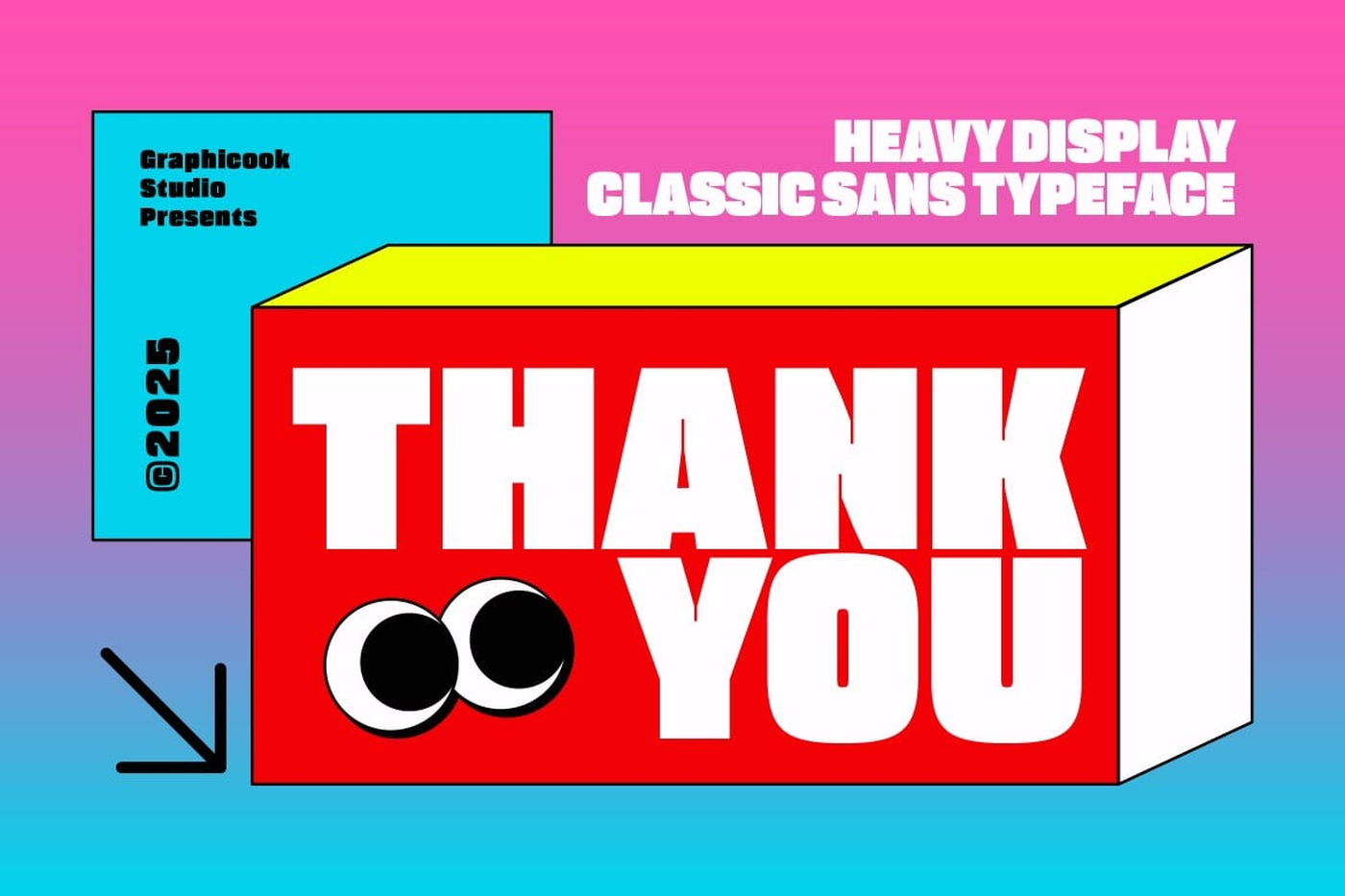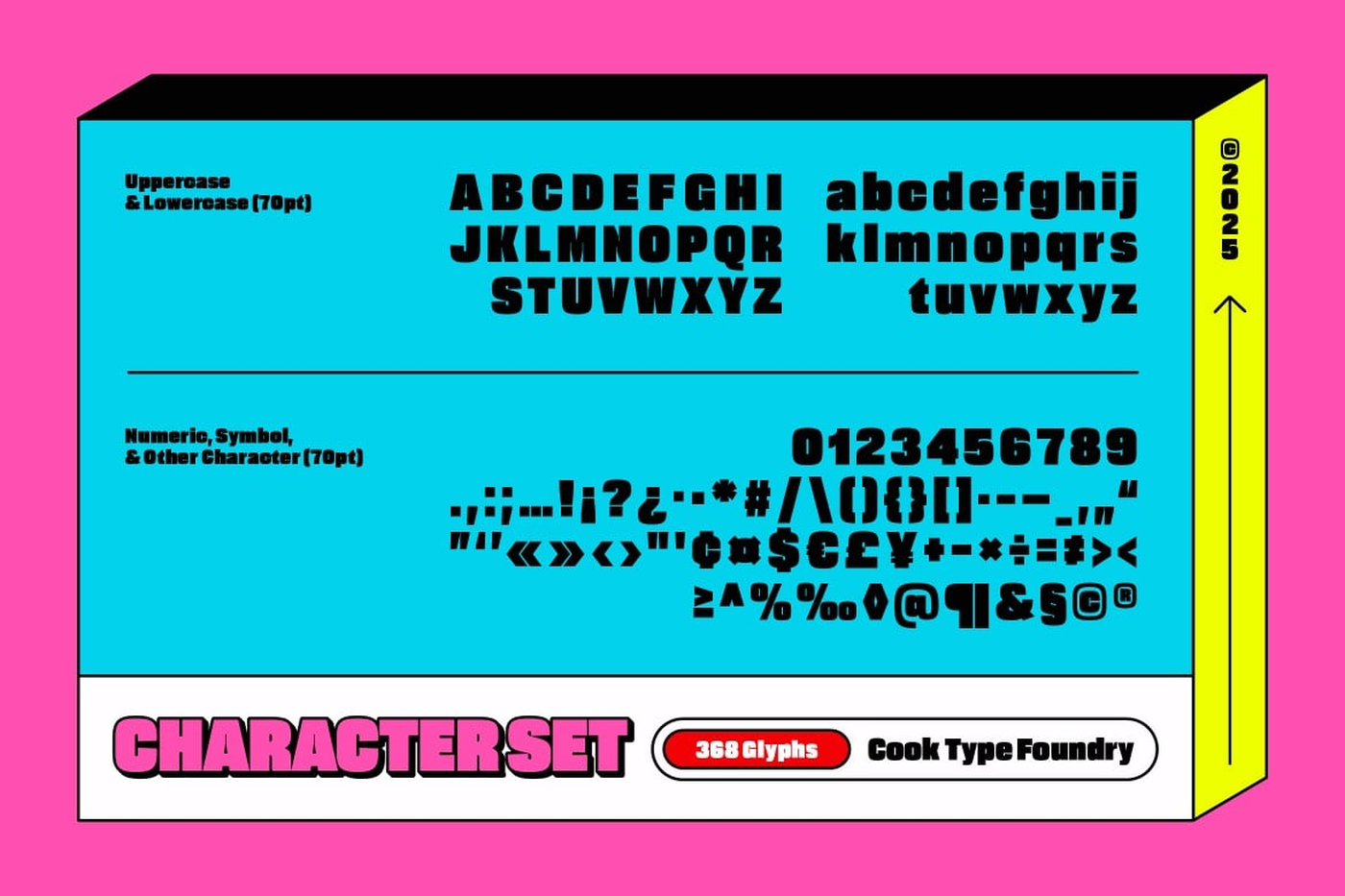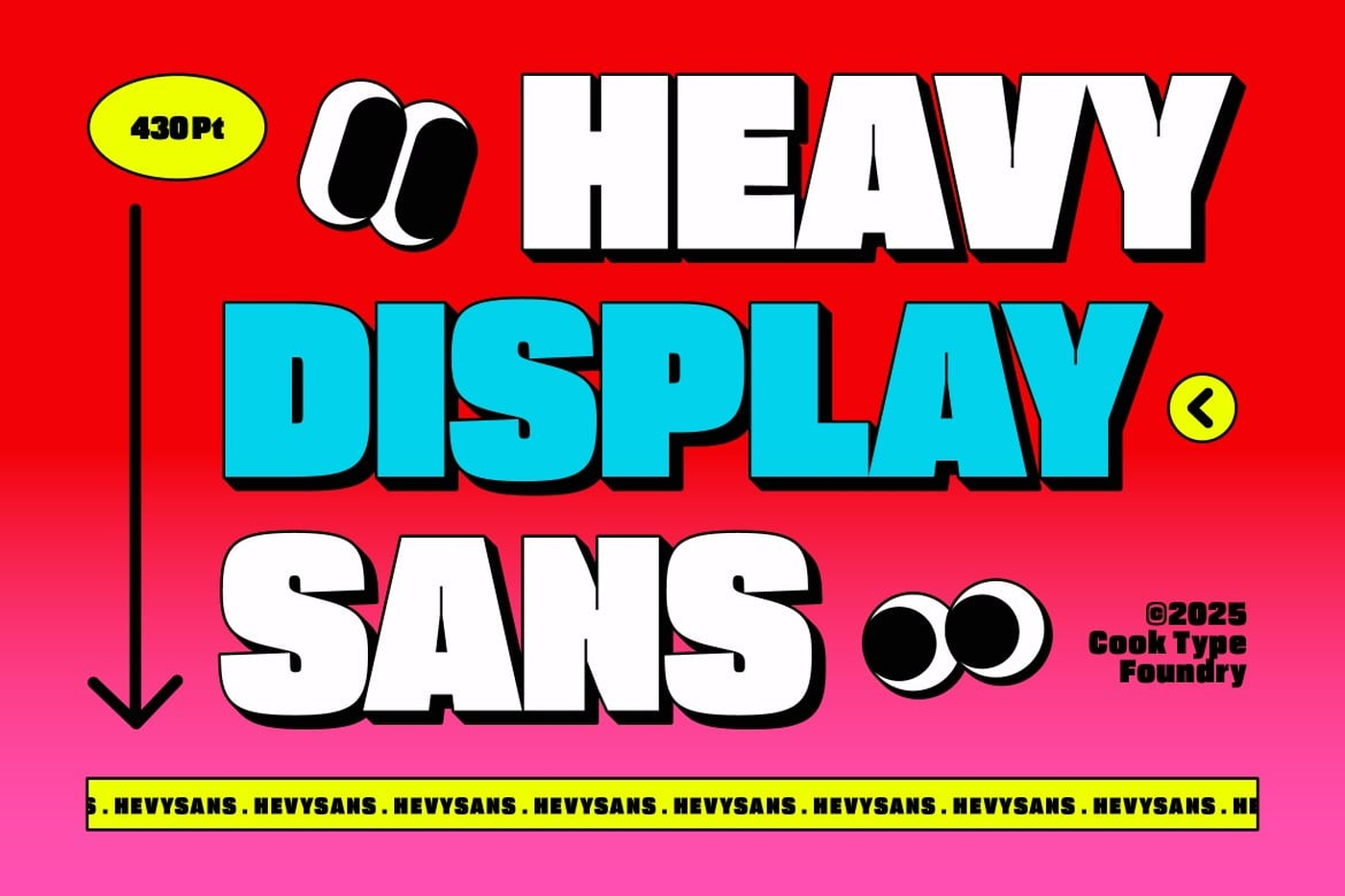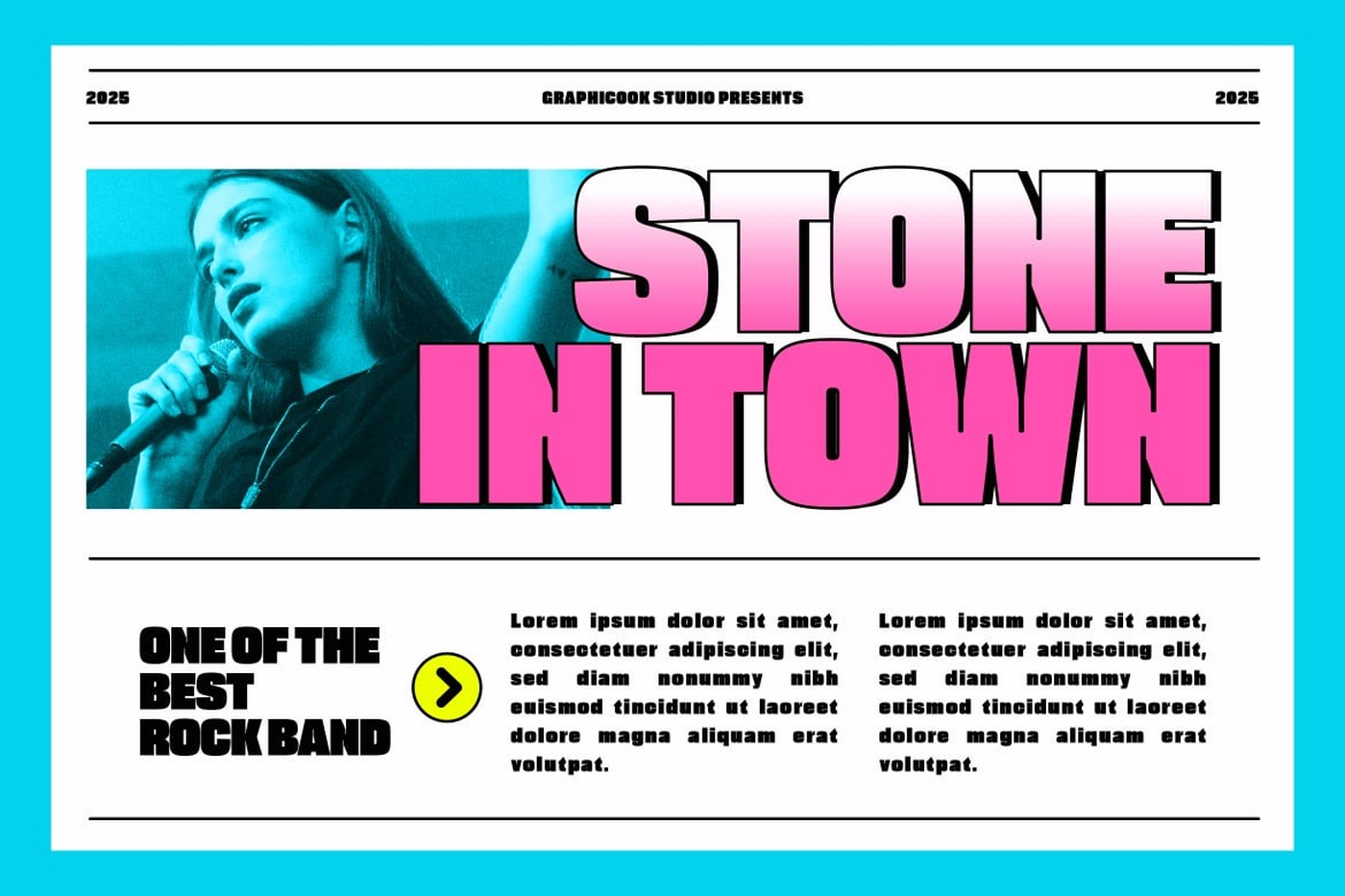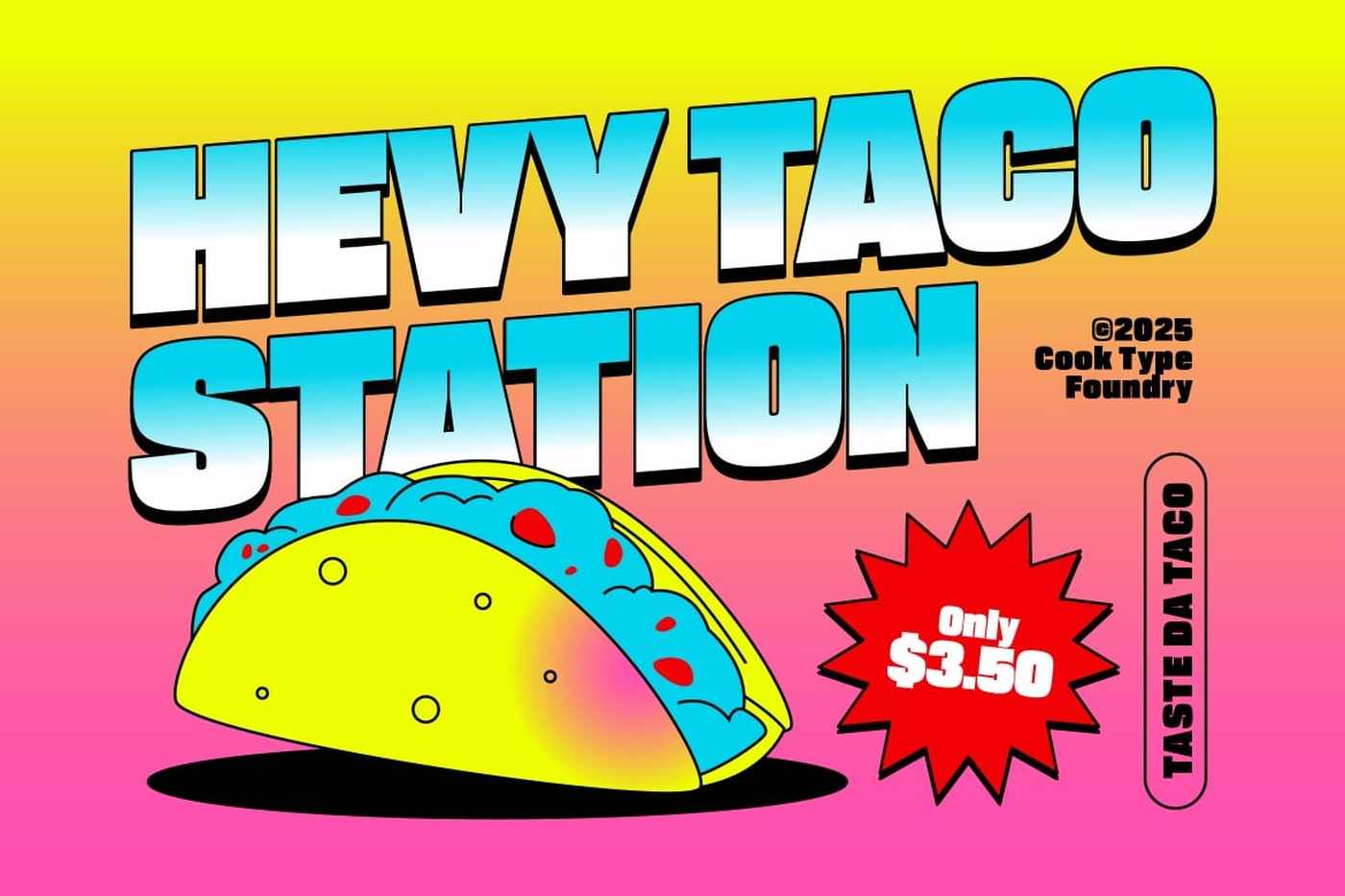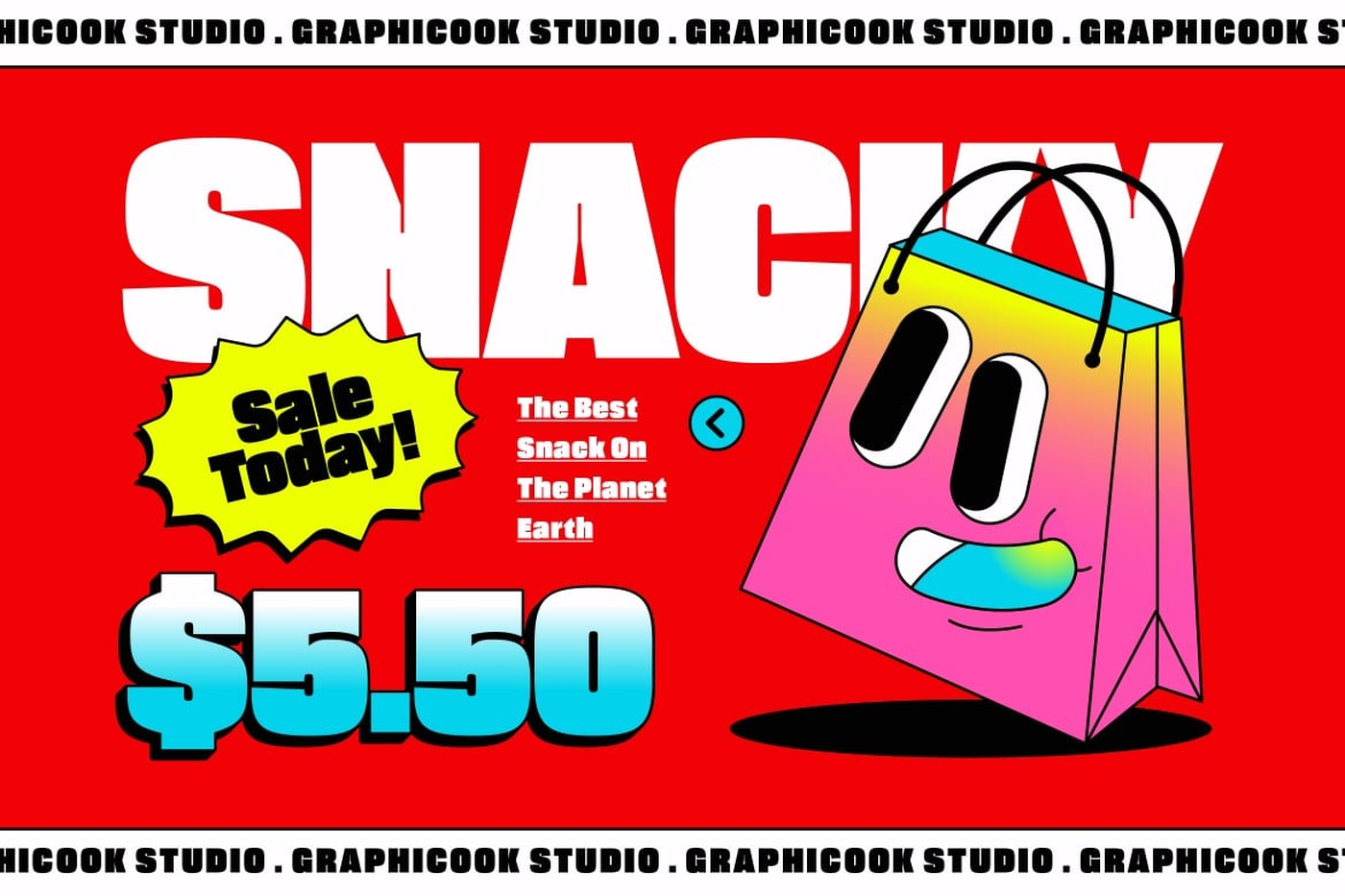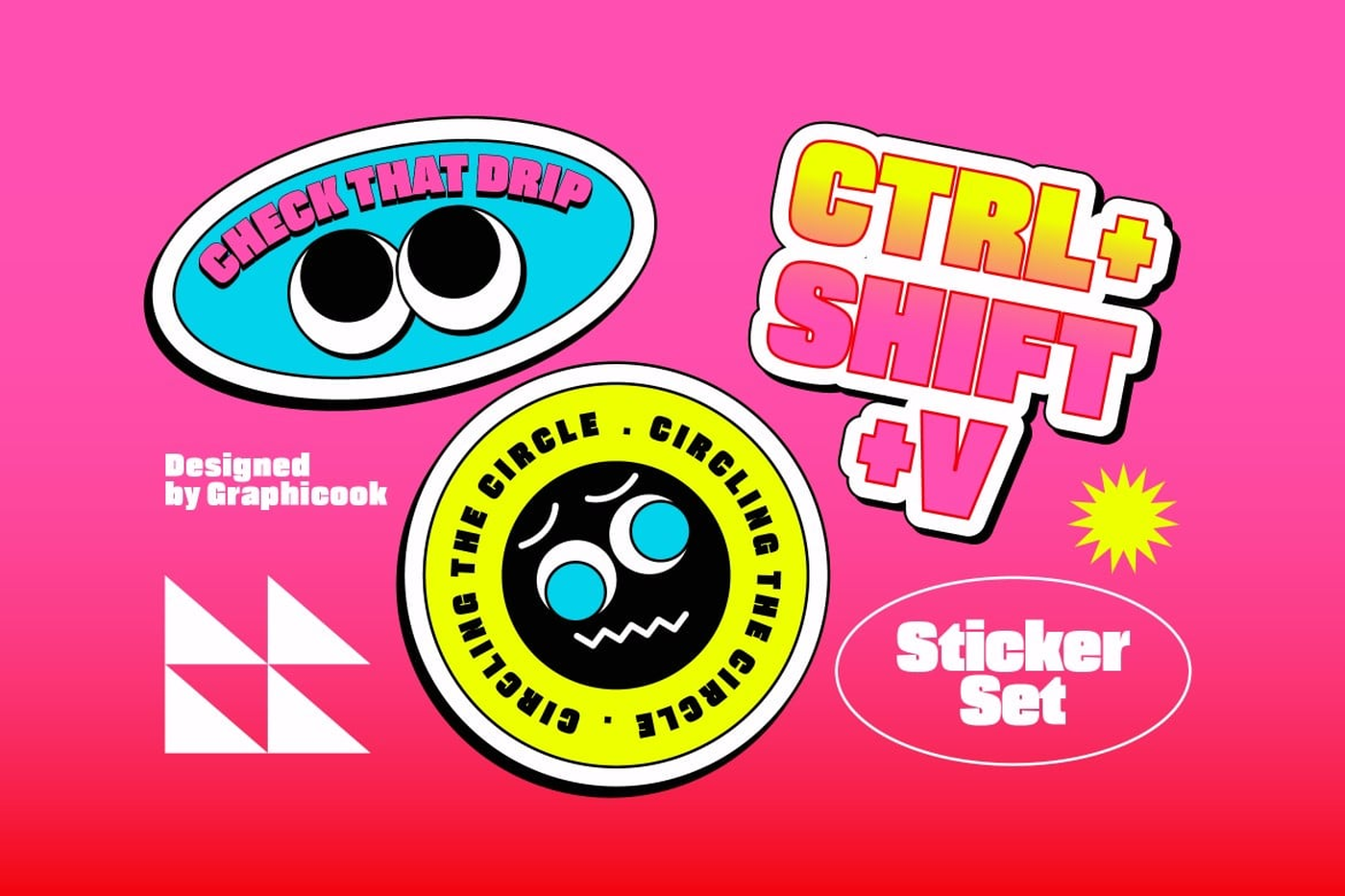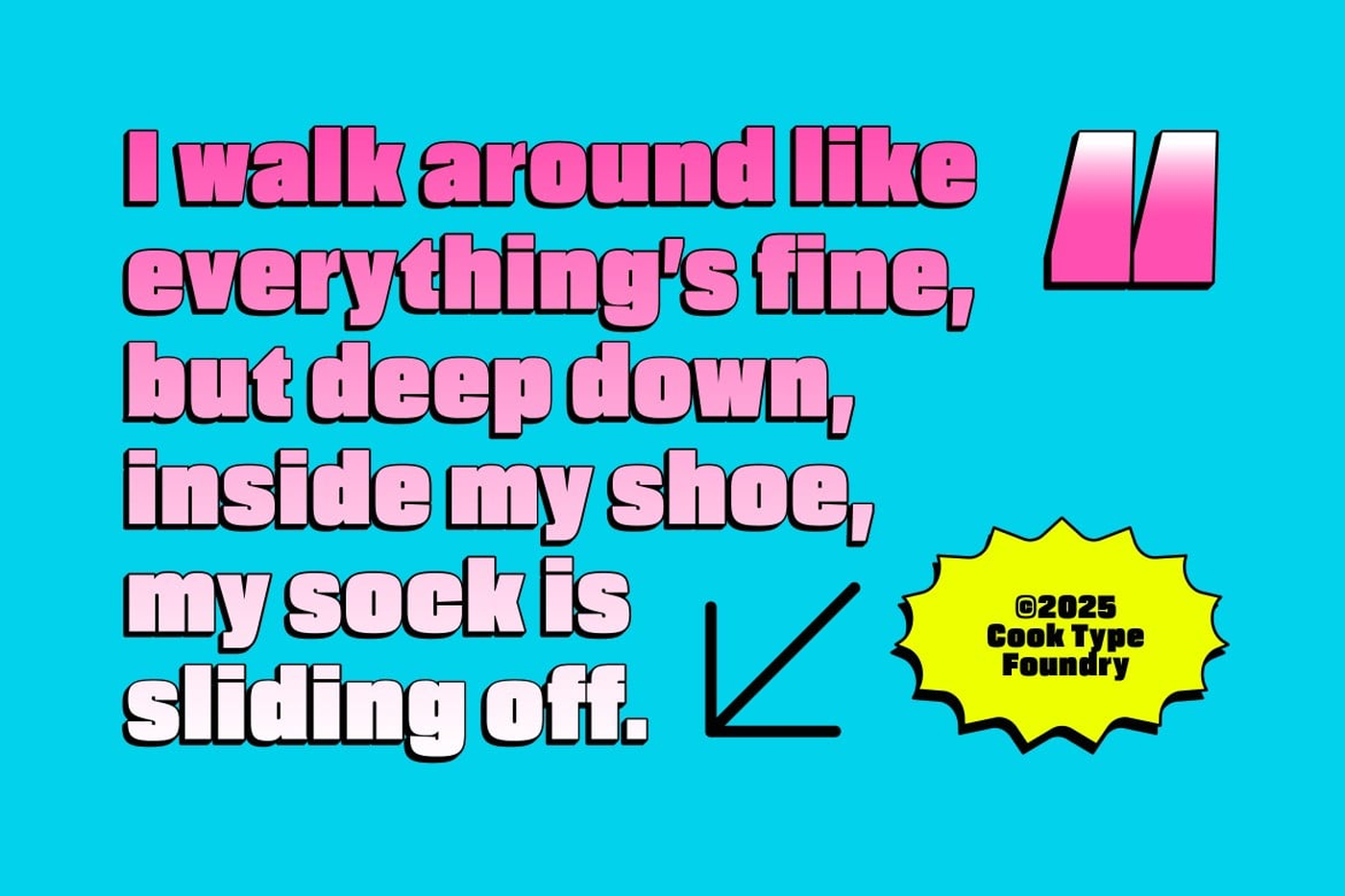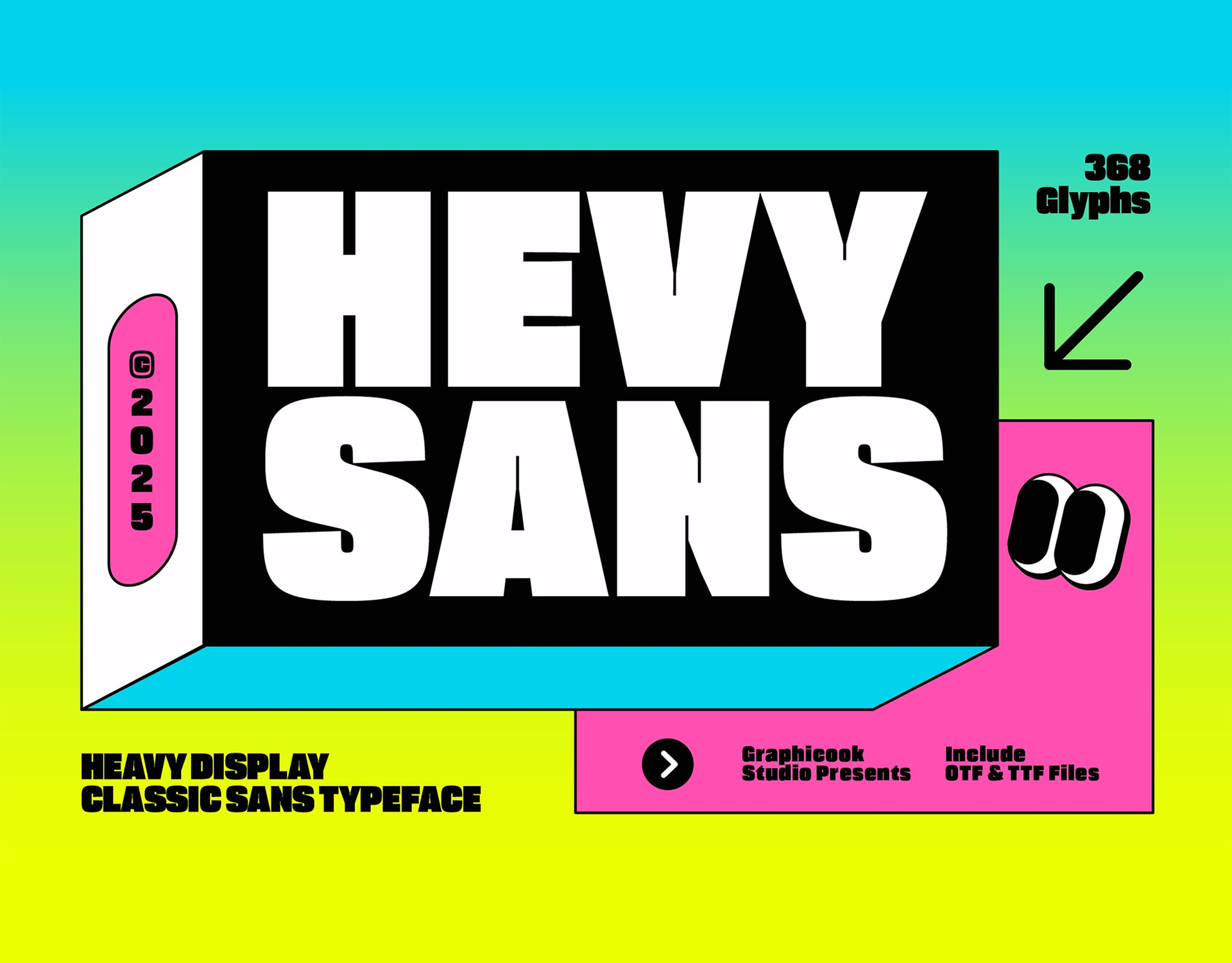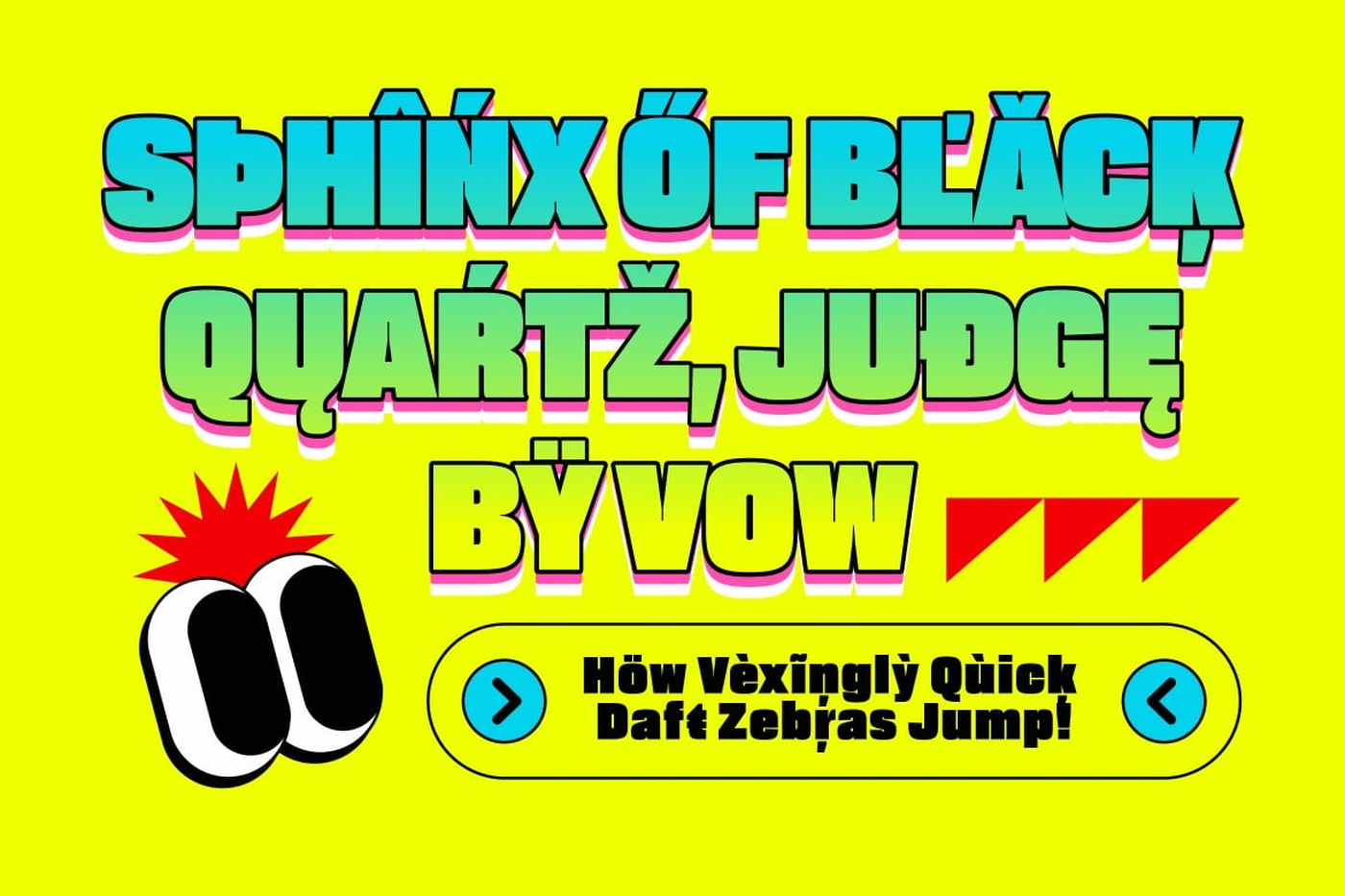
Hevysans - Sans Serif Font
Hevysans is a sans-serif font with a strong, bold character that remains highly visible from a distance. It’s ideal for headlines, posters, or any design aiming to make a bold statement.
Font: Hevysans